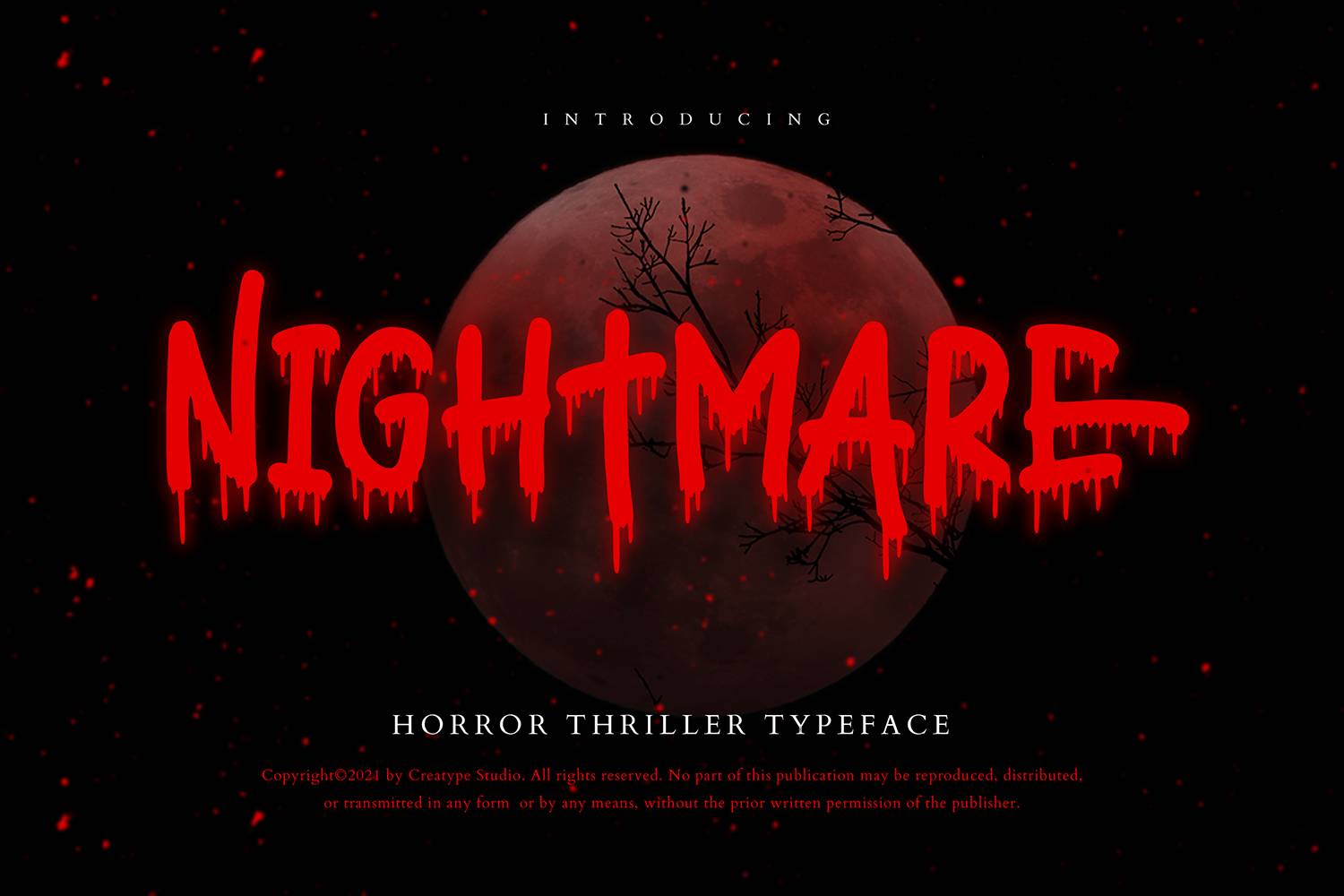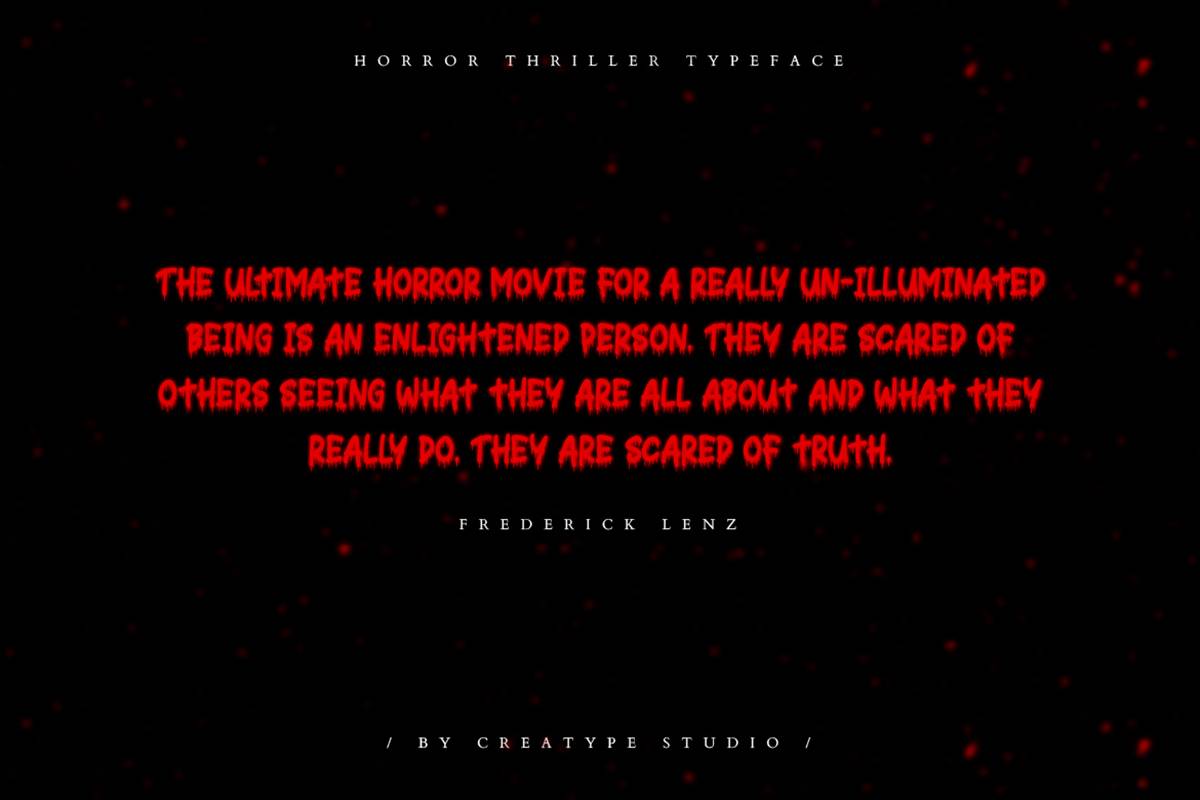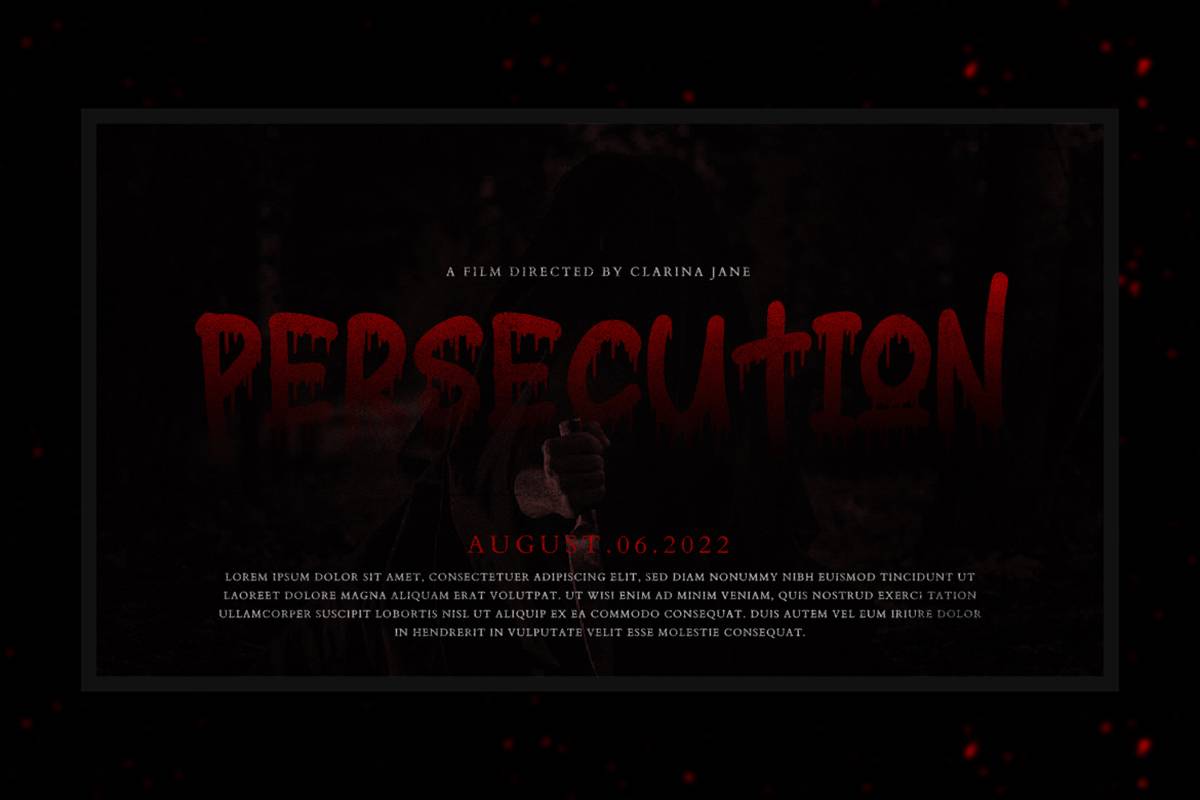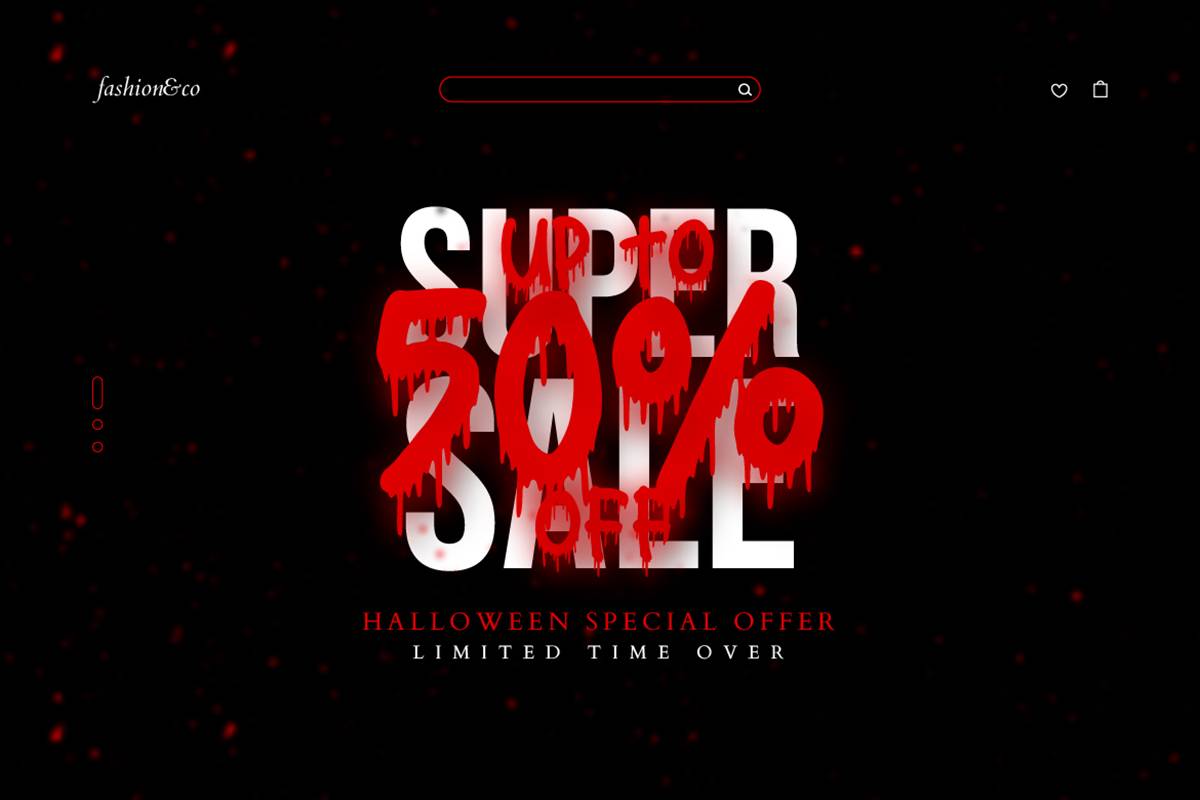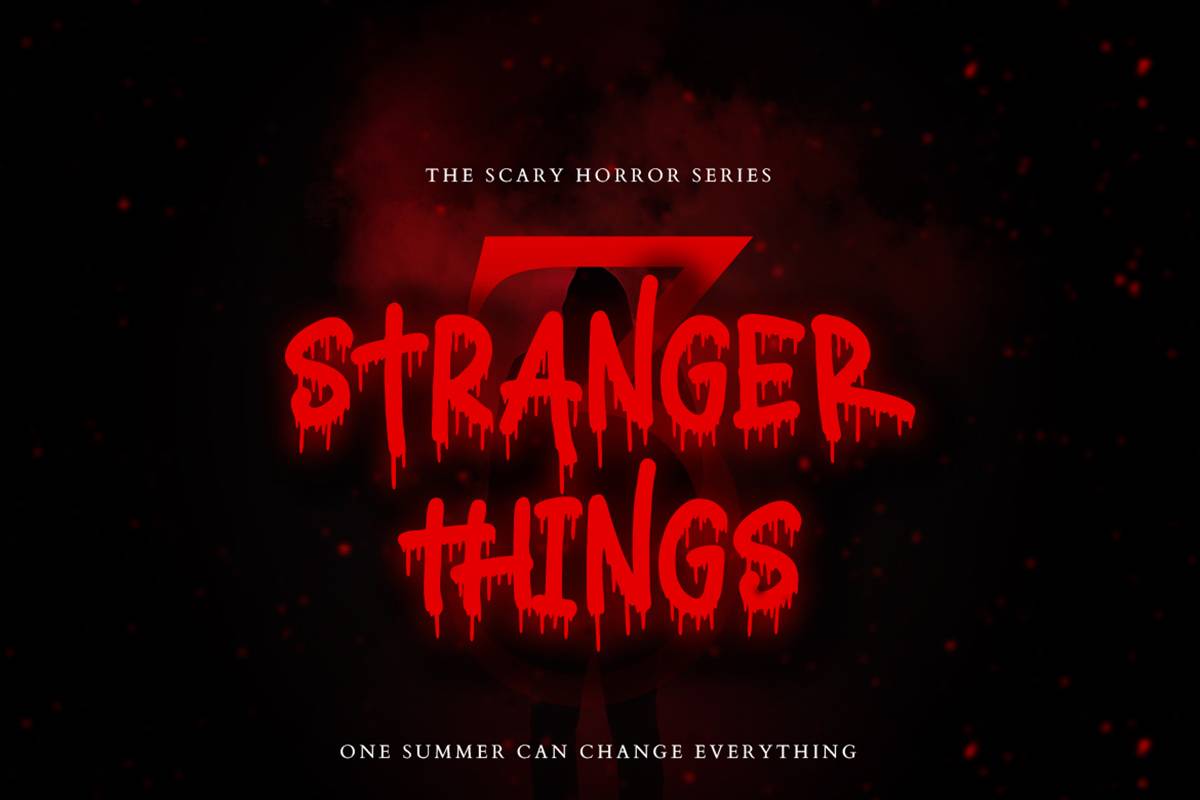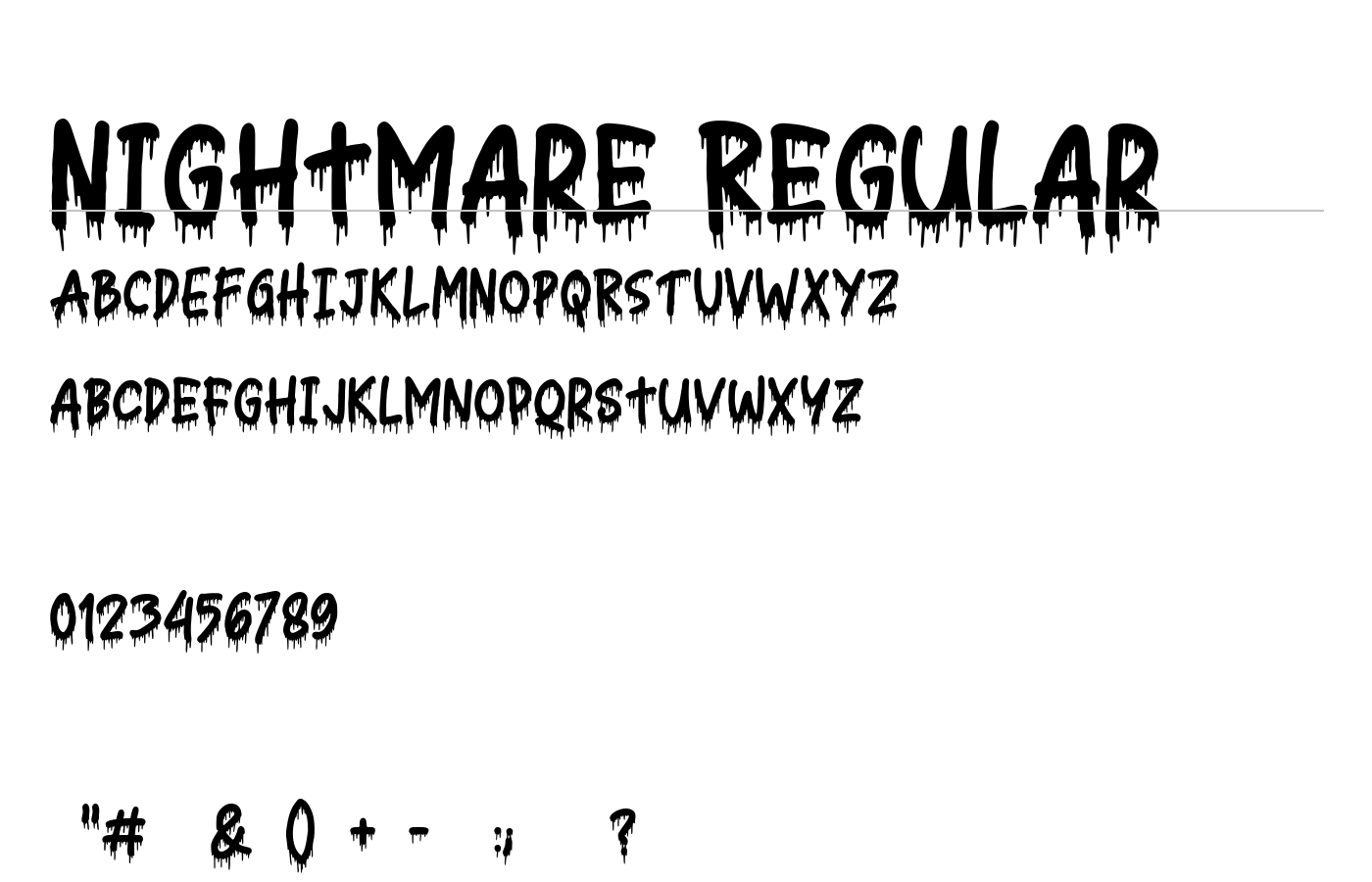
Nightmare Font is a bold, dripping display typeface that evokes a spooky and eerie atmosphere, perfect for Halloween or horror-themed designs. Its uneven, hand-drawn style with irregular edges and ink-like drips creates a dramatic, unsettling effect that grabs attention and adds a creepy, playful vibe. This font works best for headlines, posters, and packaging where a bold, thematic impact is needed.
Nightmare Font
About Nightmare Font
| Font family | Nightmare Font |